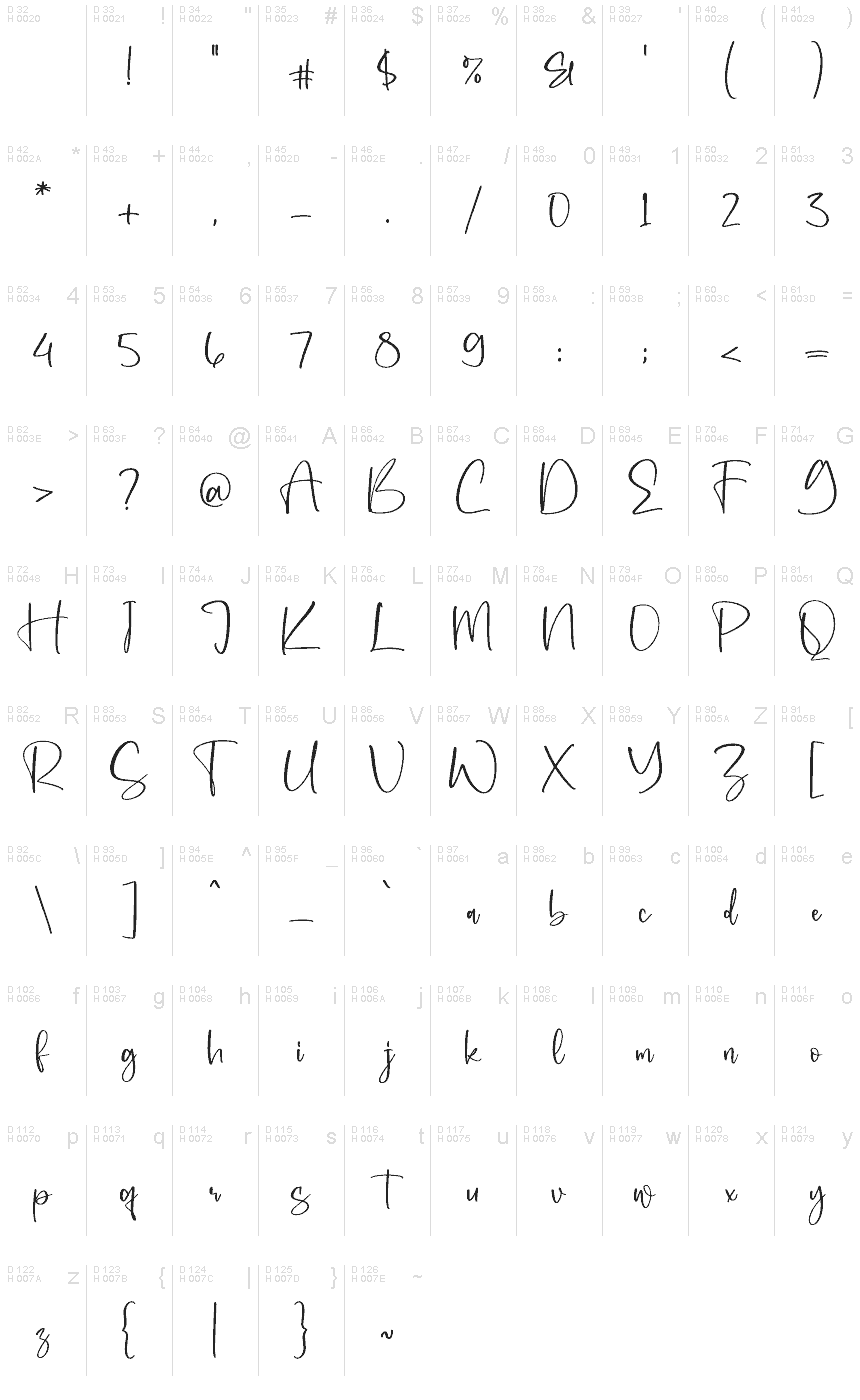
Karlissta
This is Karlissta, a signature script font provided by Perspectype Studio. With its graceful, eye catching design, it creates the ultimate luxury presence and it’s no coincidence it’s the name of a famous couture fashion show.
This font is perfect for branding (logos, labels), and with its smooth, soft calligraphic curves that convey beauty and elegance, it’s perfect to decorate everything that relates to weddings or bridal related businesses.